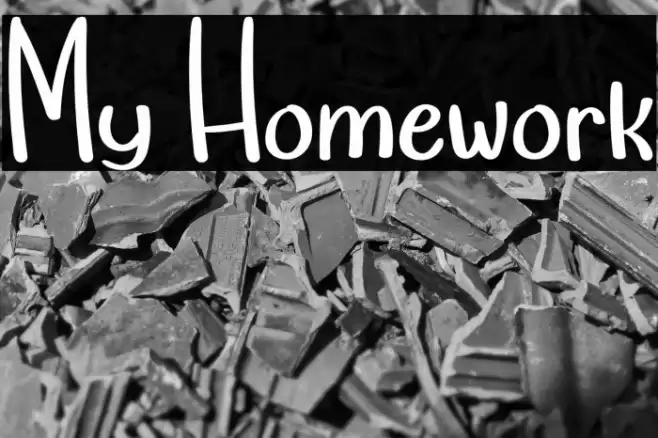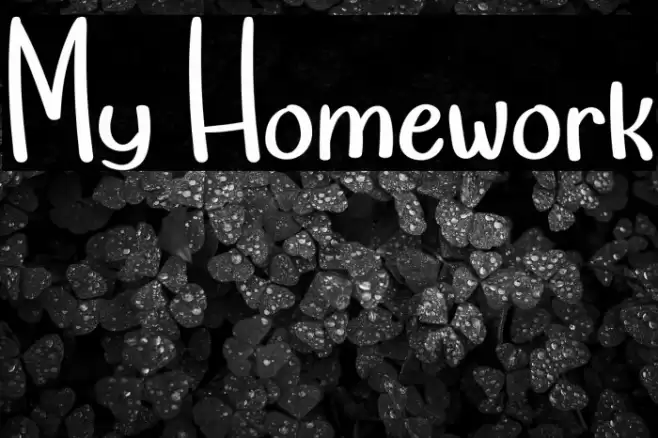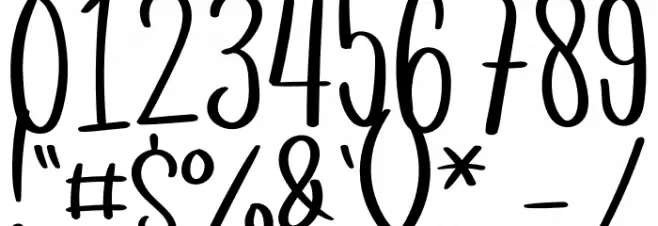
My Homework Font
My Homework Description
This font features a playful and informal handwritten style, characterized by its tall, narrow letters with a slight slant. The strokes are smooth and consistent, giving it a casual and friendly appearance. The uppercase letters are bold and prominent, while the lowercase letters maintain a consistent flow, enhancing readability. Numbers and special characters follow the same playful style, making them cohesive with the alphabet. The overall design is approachable and versatile, suitable for various creative projects.
A playful, informal handwritten font with tall, narrow letters and smooth strokes from Regular fonts.
- Proposed Projects: Ideal for greeting cards, children's books, playful branding, and social media graphics.
- Overall Style: Casual
- Use Case: Headlines, Logos, Informal Text